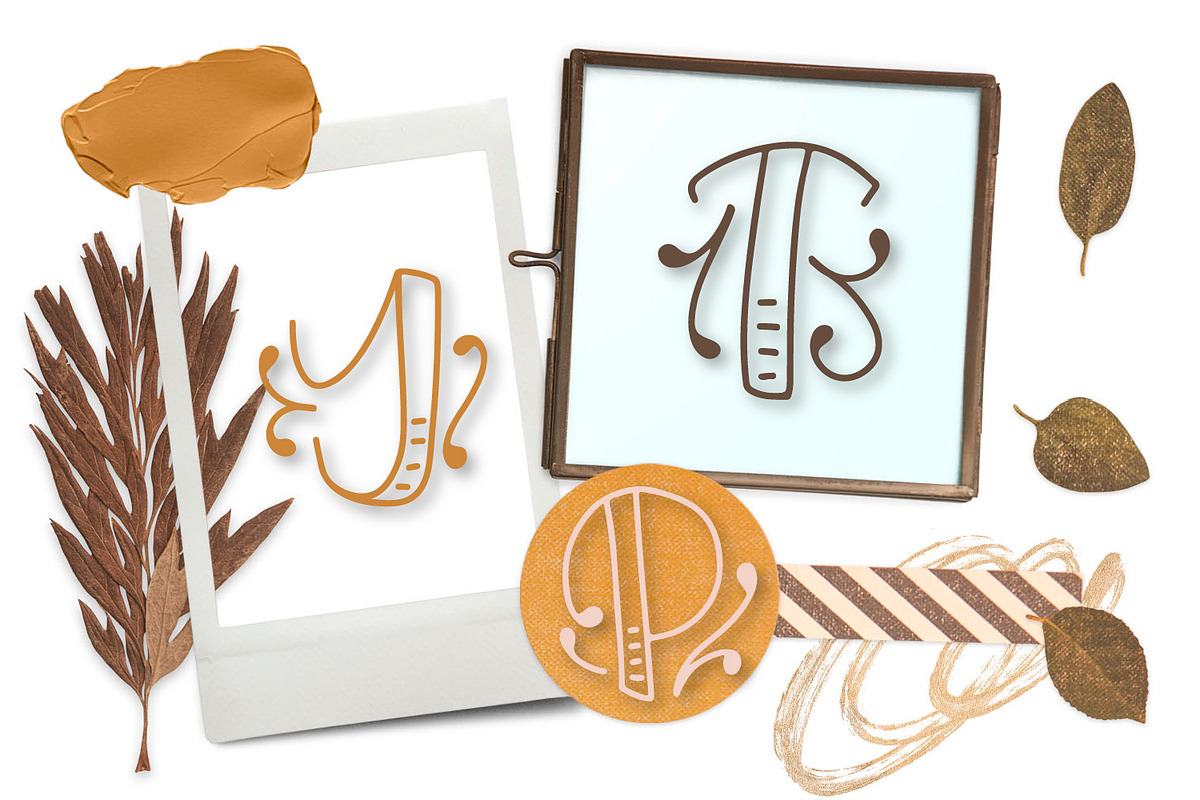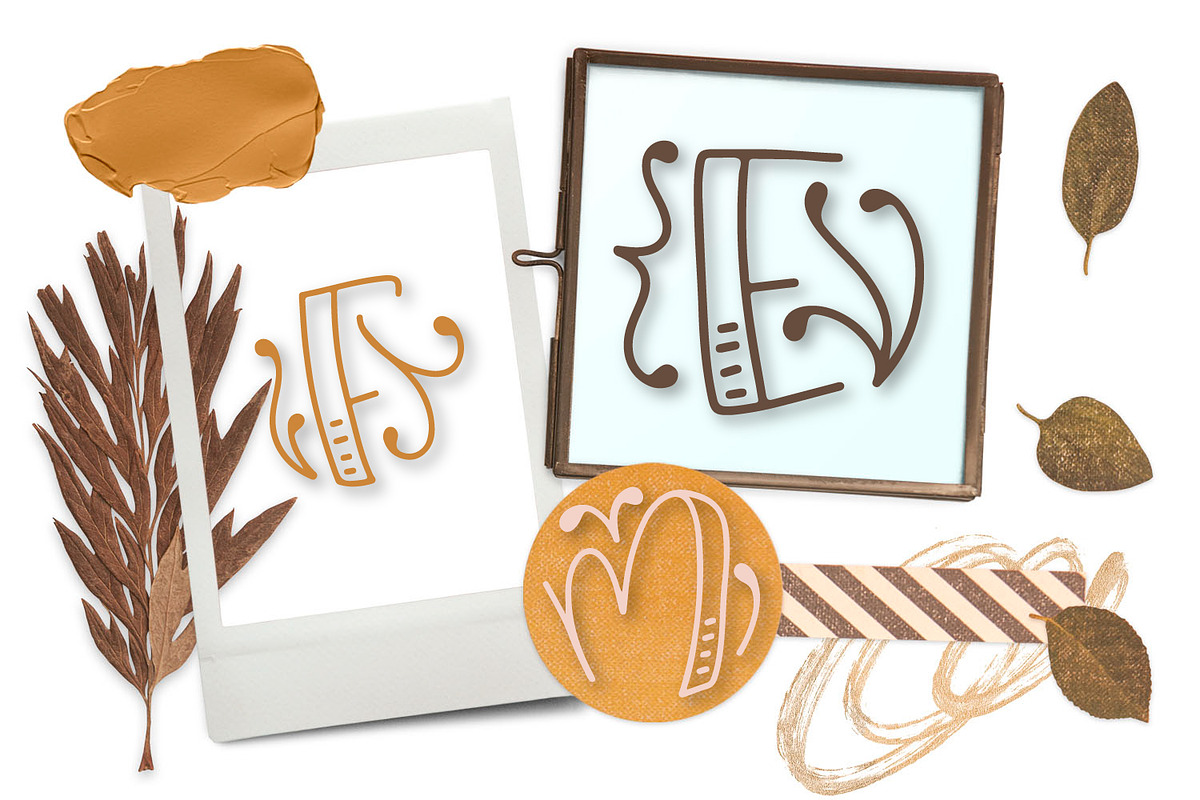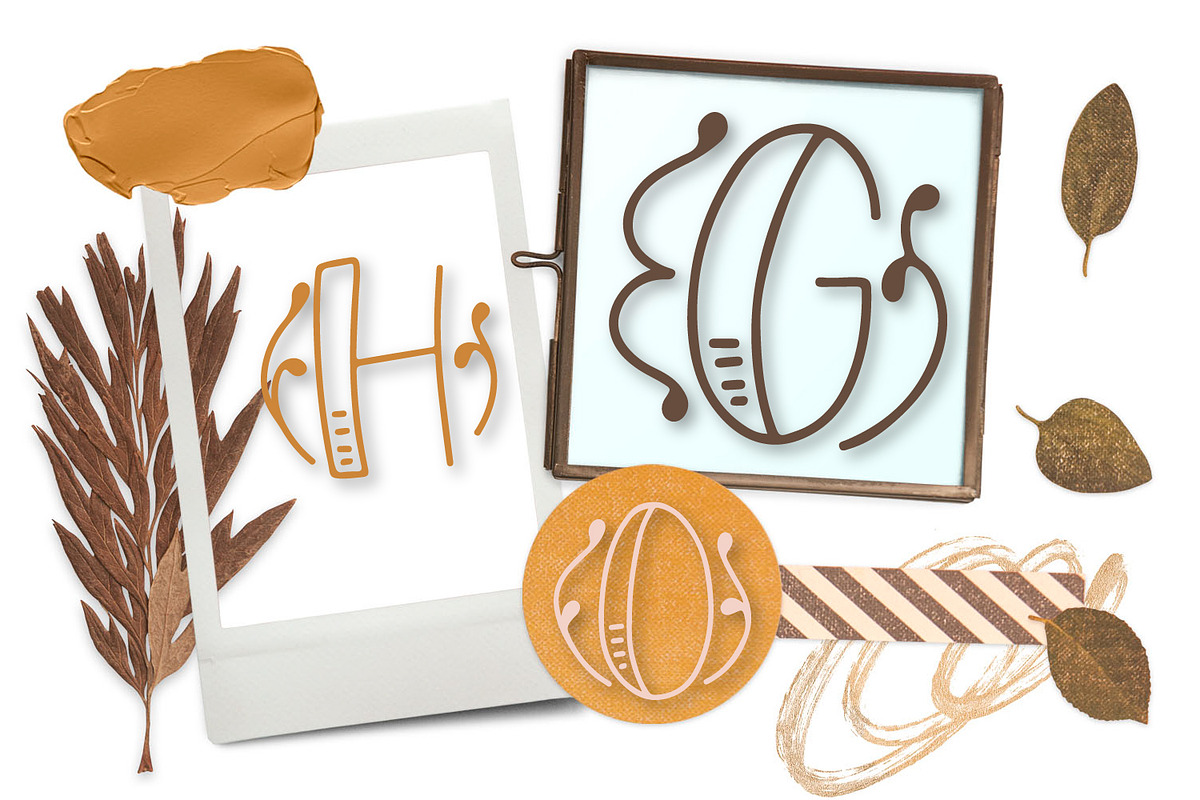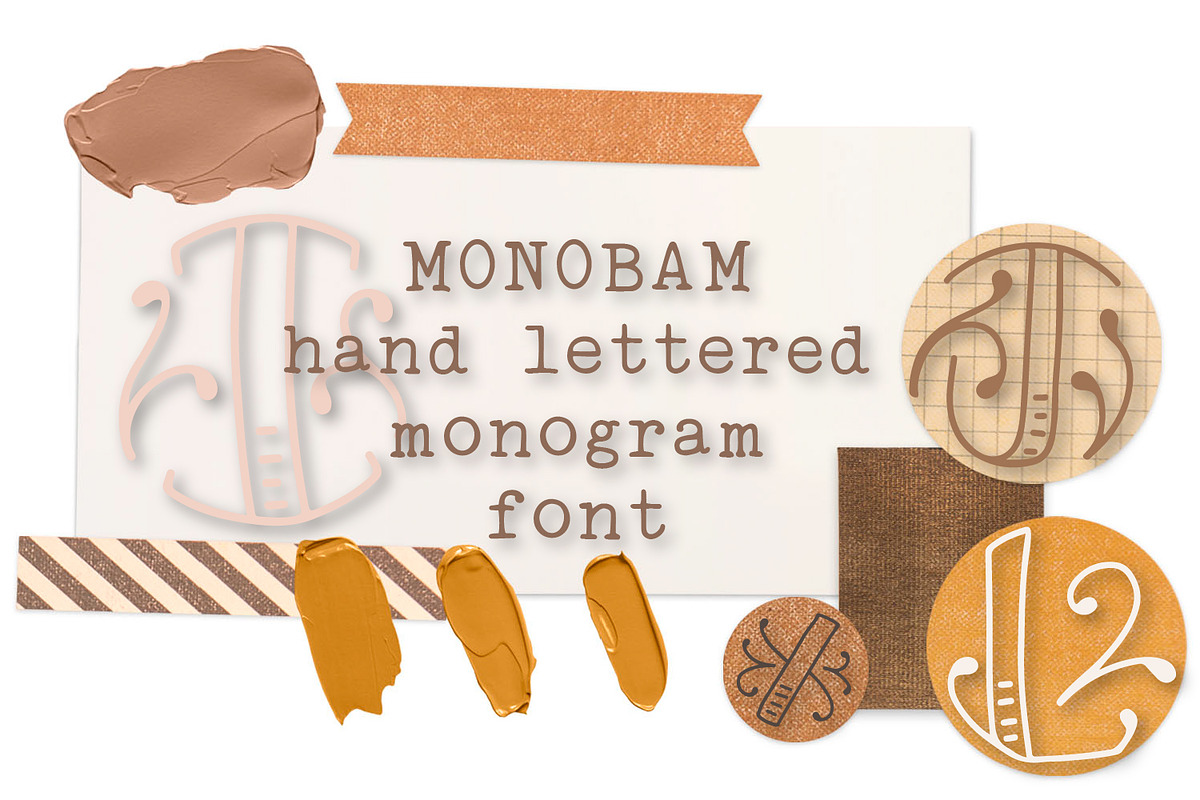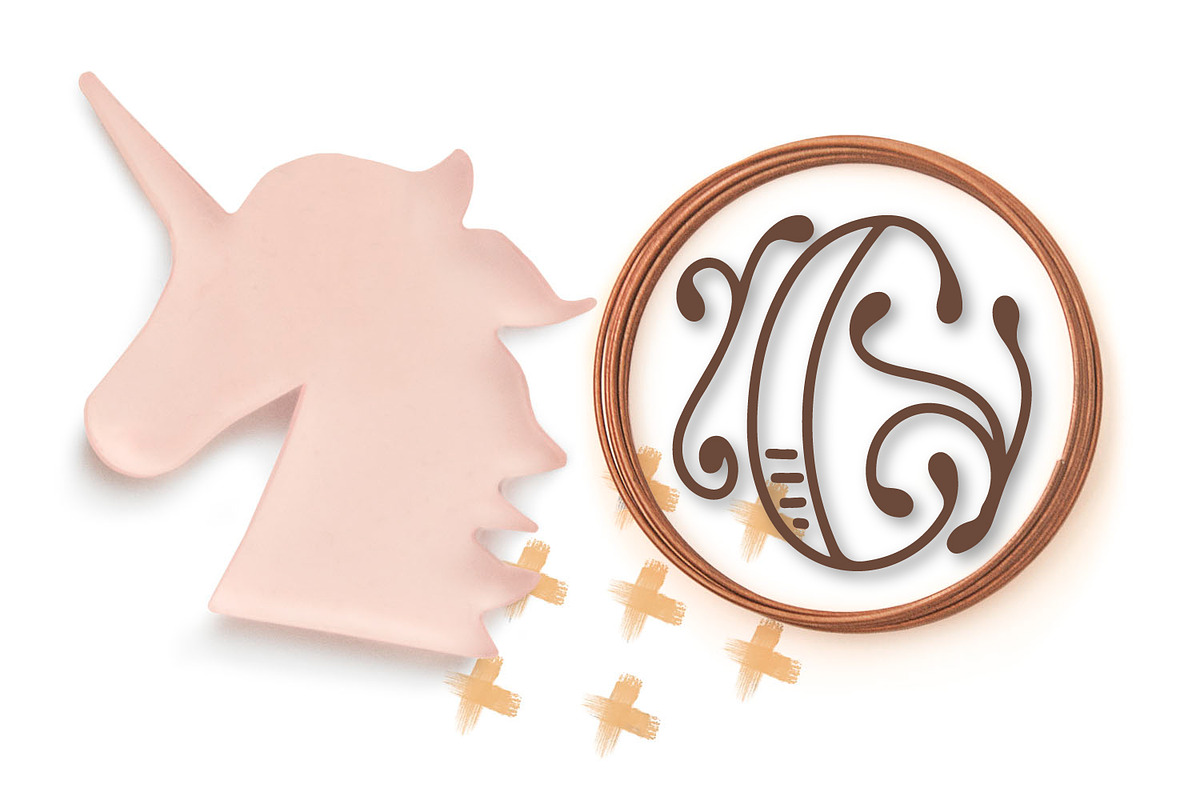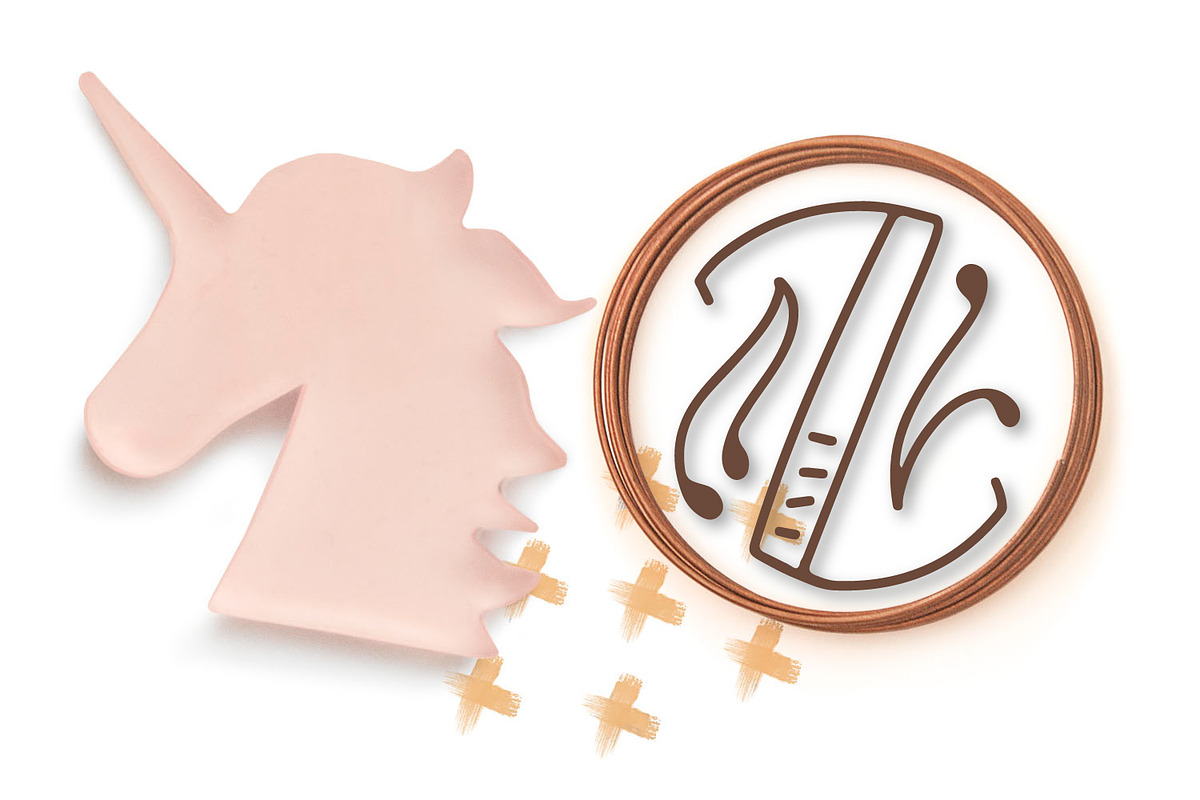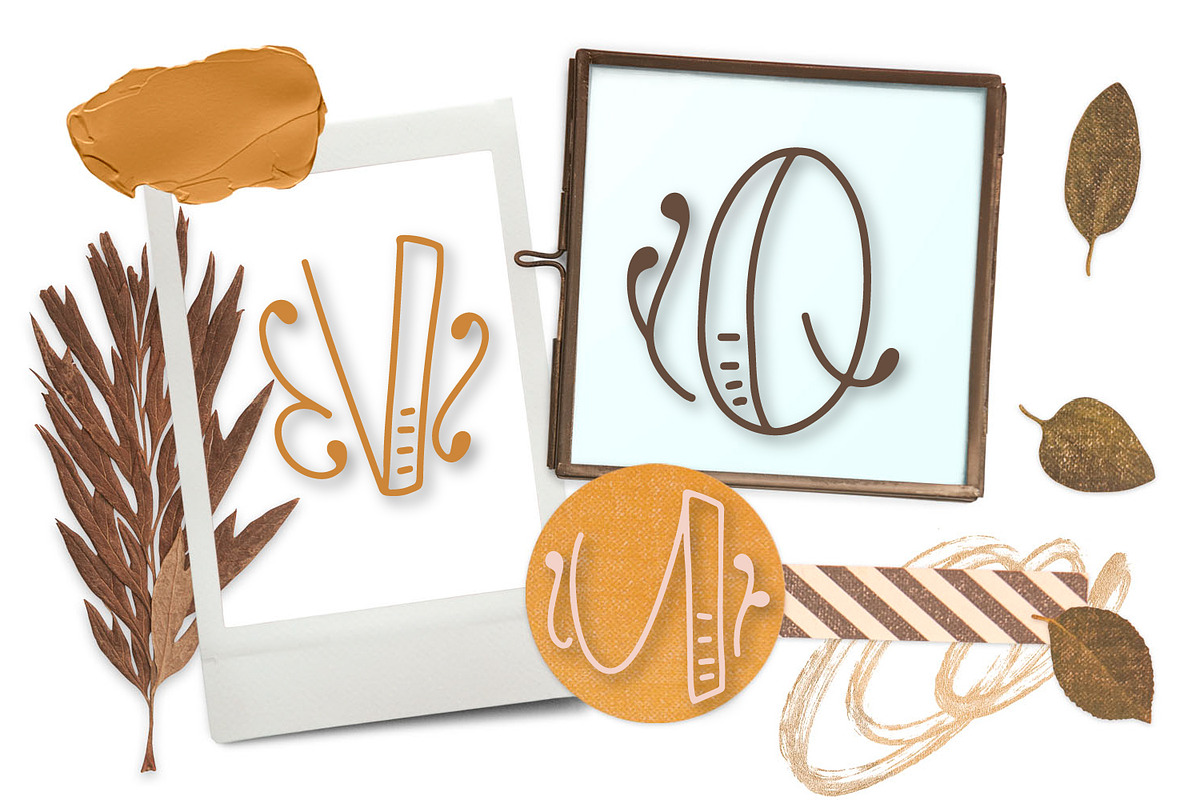
MONOBAM -Hand Lettered Monogram Font
Why MONOBAM -Hand Lettered Monogram Font is worth a look
MONOBAM -Hand Lettered Monogram Font by CraftyLittleNodes fits naturally into Branding, posters, packaging, typography.